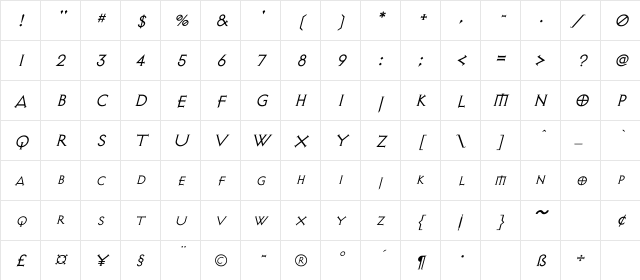
Avalon Quest Italic
Design Context for Avalon Quest Typeface
Avalon Quest is a composed and adaptable typeface that performs quietly and consistently across a wide range of design contexts. The dynamic lean of this cut emphasises speed and emphasis in any layout.
Pro Tip: Try Avalon Quest for annotation and caption copy alongside an upright companion — the contrast in angle creates a dynamic but ordered typographic system.